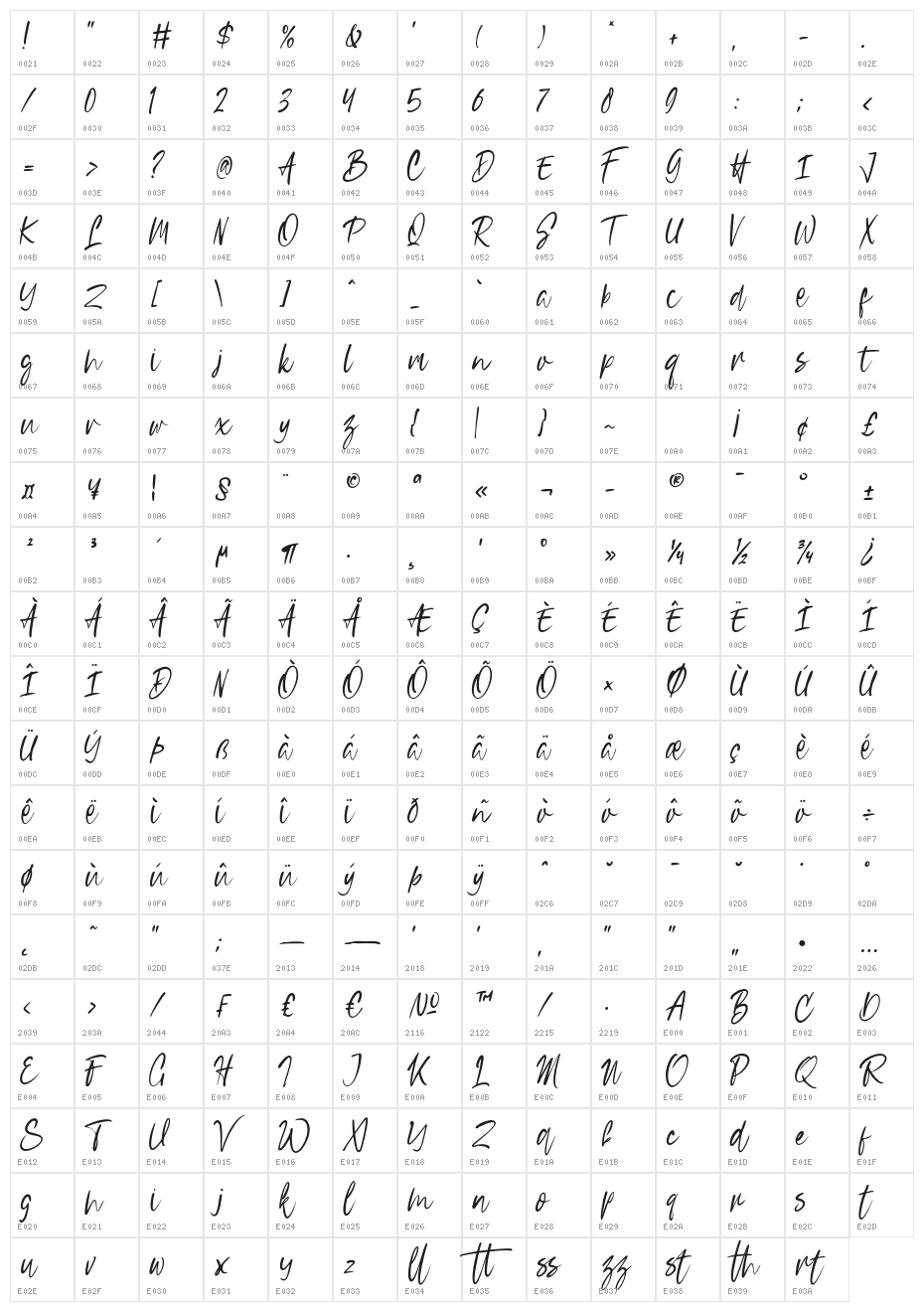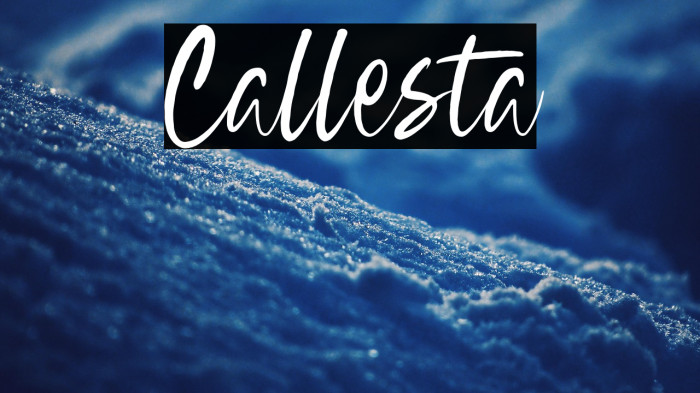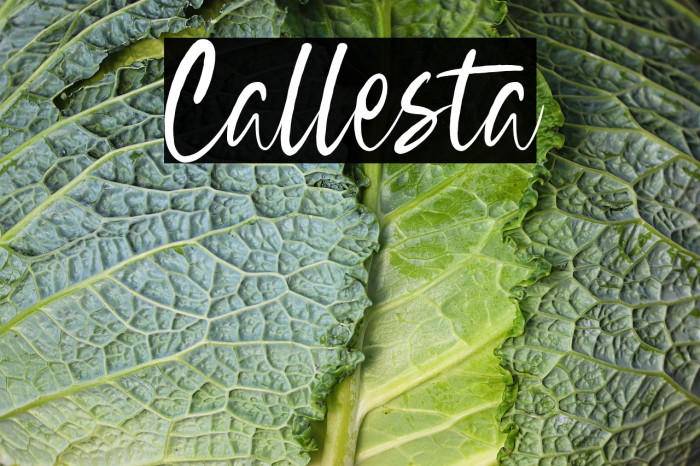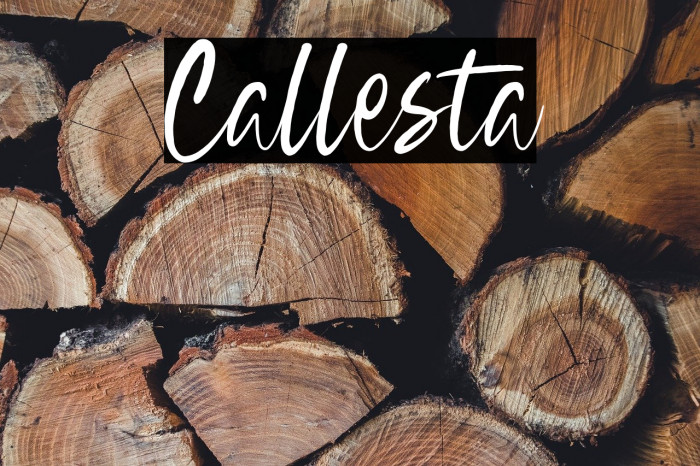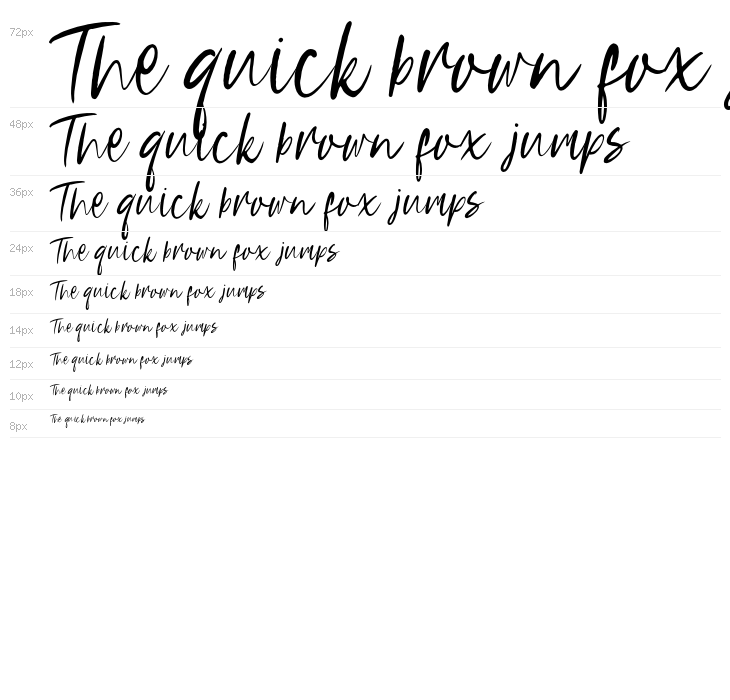
Callesta Font
Callesta Description
This font exhibits a lively and dynamic handwritten style, characterized by its fluid and expressive strokes. The letters are slightly slanted, giving a sense of motion and energy. The uppercase and lowercase letters maintain a consistent style, with a playful yet elegant appearance. The numbers and special characters are crafted with the same attention to detail, ensuring a cohesive look across all elements. This font is perfect for projects that require a personal touch, such as invitations, greeting cards, or branding materials that aim to convey warmth and approachability.
| Use Case | Headlines, Logos, Personal projects |
| Proposed Projects | Ideal for invitations, greeting cards, branding, and personal projects. |